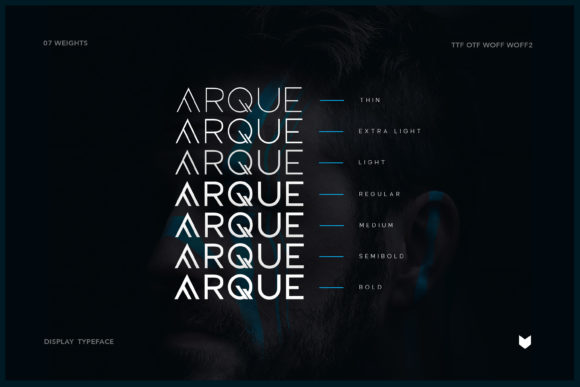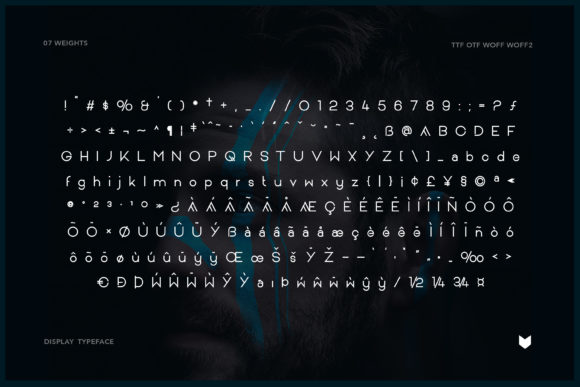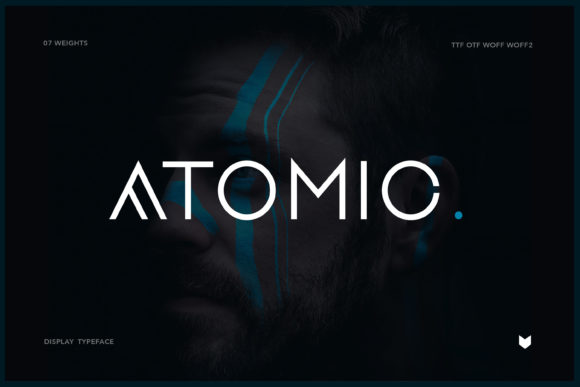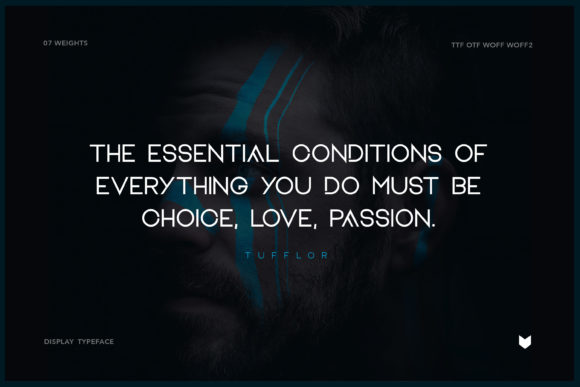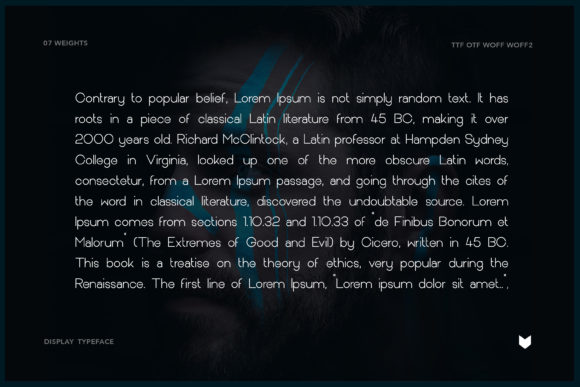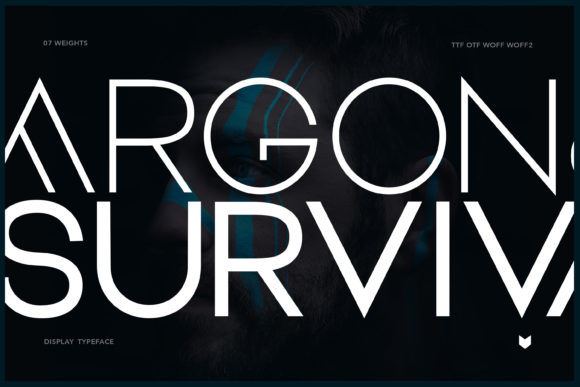
The Designer’s Delight: Arque Font Review and Guide
I’ll never forget the time I was working on a project for a client who wanted a modern and sleek look. I had spent hours browsing through font libraries, but nothing seemed quite right. That was until I stumbled upon Arque Font – a game-changer for any designer looking to elevate their creative projects.
Arque Font: A Modern and Geometric Styled Display Font
Arque is a modern and geometric styled display font that can easily be matched to an incredibly large set of projects. Its unique design makes it perfect for adding a touch of sophistication and elegance to your creative ideas. Whether you’re a designer, crafter, or creative hobbyist, Arque Font is sure to make your projects stand out!
Honest Review: What I Love and What I Don’t
The Good ✨
- ✅ Versatility: Arque Font is incredibly versatile and can be used for a wide range of projects, from branding and advertising to packaging and digital media.
- ✅ Legibility: The font is highly legible, even at small sizes, making it perfect for use in body text or captions.
- ✅ Unique Design: Arque Font has a unique and distinctive design that sets it apart from other fonts.
The Not-So-Good 🤔
- ⚠️ Limited Use in Serif Contexts: Arque Font is a sans-serif font, which means it may not be the best choice for projects that require a serif font.
- ⚠️ No Italic Version: Unfortunately, Arque Font does not come with an italic version, which may limit its use in certain contexts.
Arque Font comes with a range of OpenType features and glyphs that can be used to enhance your designs. Here are a few examples:
- Stylistic Alternates: Arque Font comes with a range of stylistic alternates that can be used to add a touch of personality to your designs.
- Glyphs: The font comes with a range of glyphs, including ligatures and swashes, that can be used to add a touch of elegance to your designs.
The Story Behind Arque Font
Arque Font was designed by a team of typographers who wanted to create a font that was both modern and elegant. The font was inspired by the geometric shapes of modern architecture and the clean lines of sans-serif typography.
| Font Name | Arque Font |
| Author | Foxtype |
Q: What is Arque Font?
A: Arque Font is a modern and geometric styled display font that’s perfect for use in a wide range of projects.
Q: Is Arque Font easy to read?
A: Yes, Arque Font is highly legible, even at small sizes, making it perfect for use in body text or captions.